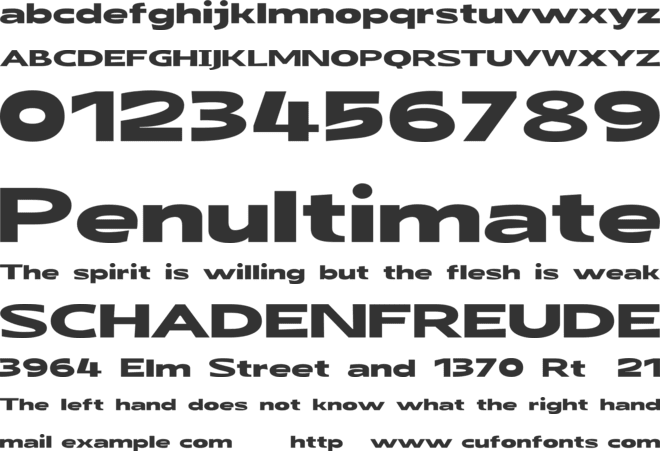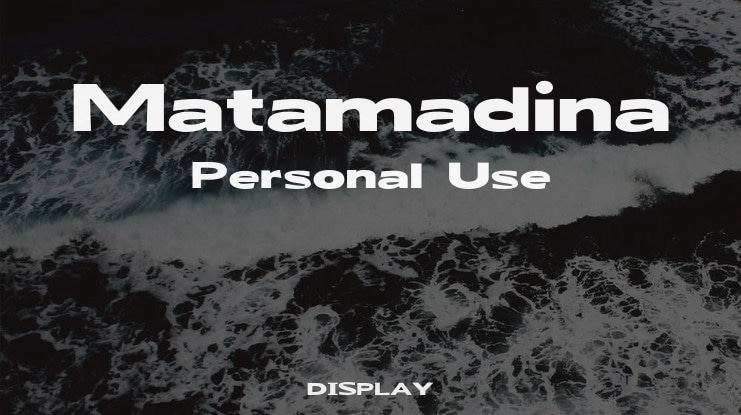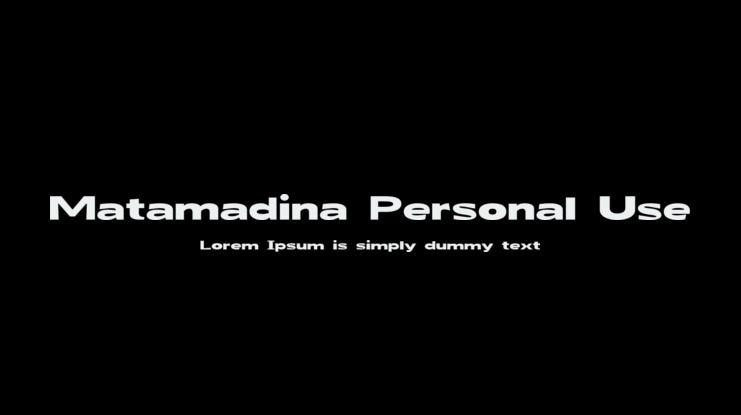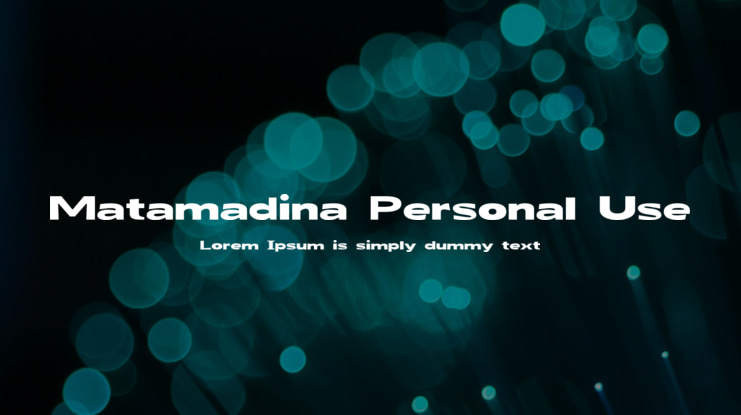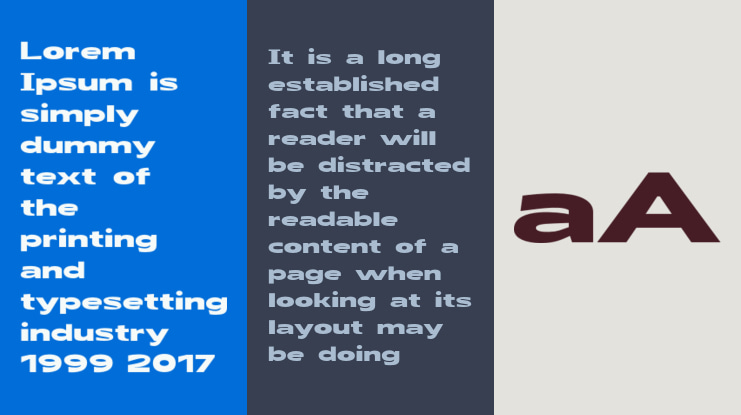
Matamadina Personal Use Font
Matamadina is a sleek and sophisticated black sans-serif typeface that effortlessly combines modern aesthetics with timeless simplicity. The characters exude a sense of boldness and clarity, featuring sharp edges and a uniform stroke width that enhances legibility.